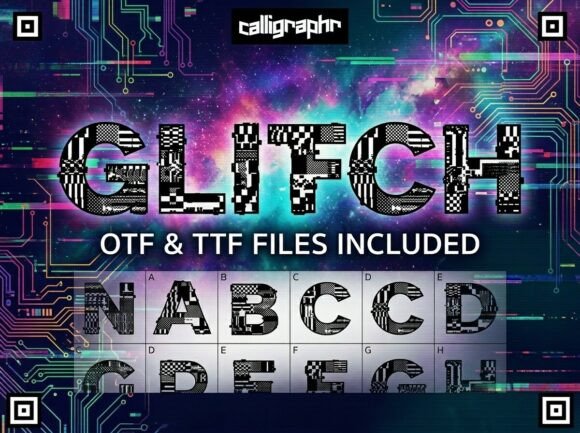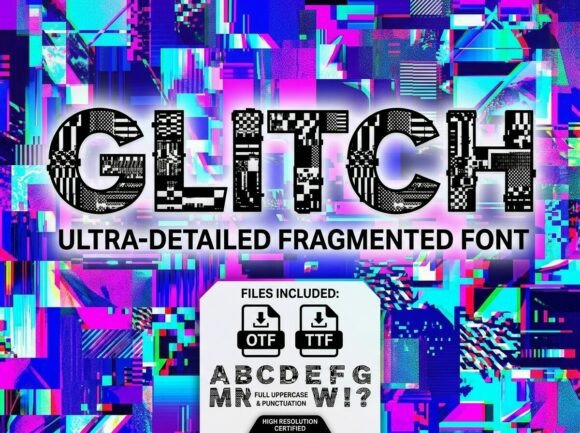
Hack Your Way into the Future of Digital Design with Glitch Font
In the realm of digital design, fonts play a crucial role in shaping the visual identity of a project. For those seeking to inject a dose of cyberpunk flair into their creations, the Glitch Font is an electrifying choice. This display typeface is meticulously crafted to mirror a corrupted system matrix, offering a unique blend of style and technical disruption.
The Anatomy of Glitch Font
Glitch Font boasts thick sans-serif hulls that are heavily distorted with static anomalies, displacement shifts, and horizontal tracking errors. This deliberate distortion gives the font an aggressive, high-contrast digital edge that is sure to turn heads. The internal canvas of each character is packed with a dizzying mix of:
- Checkerboard pixel arrays
- Binary digital noise
- Clipped data bars
This intricate design makes Glitch Font an extraordinary choice for projects that demand a futuristic and edgy aesthetic.
Applications of Glitch Font
The versatility of Glitch Font makes it suitable for a wide range of applications, including:
- Virtual Streamer Overlays: Add a cyberpunk twist to your live streams with Glitch Font, making your channel stand out in a crowded digital landscape.
- Cyberpunk Video Game Headers: Elevate your game’s title screens and menus with a font that embodies the essence of a futuristic, high-tech world.
- Electronic Synthwave Album Covers: Capture the nostalgia and futuristic vibe of synthwave music with Glitch Font, perfect for album covers and promotional materials.
- Industrial Tech Branding: Inject a dose of cyber-coolness into your tech brand’s visual identity, making it more appealing to fans of industrial and cyberpunk aesthetics.
The Benefits of Using Glitch Font
Glitch Font offers several benefits to designers and crafters looking to push the boundaries of digital design:
- Professional Cyber-Coolness: Glitch Font delivers an unyielding sense of professionalism and coolness, perfect for brands and projects aiming to appear cutting-edge and futuristic.
- Legendary Structural Chaos: The font’s distorted and disrupted design elements bring a sense of legendary structural chaos to your layouts, making every headline feel intensely animated and alive.
- High-Velocity Aesthetic: With its thick sans-serif hulls and static anomalies, Glitch Font provides a high-velocity aesthetic that is sure to capture the attention of your audience.
Tips for Using Glitch Font Effectively
To maximize the impact of Glitch Font in your designs, consider the following tips:
- Balance with Simplicity: While Glitch Font is attention-grabbing, it’s essential to balance it with simpler design elements to avoid visual overload.
- Experiment with Colors: The font’s high-contrast design makes it versatile for use with various color schemes. Experiment with neon colors, dark palettes, or metallic finishes to enhance its cyberpunk appeal.
- Mix with Other Fonts: For added visual interest, consider mixing Glitch Font with other fonts that complement its futuristic and edgy aesthetic.
Glitch Font is more than just a typeface; it’s a statement piece for your digital designs. Its unique blend of cyberpunk style, technical disruption, and high-contrast aesthetic makes it an extraordinary choice for designers and crafters looking to hack their way into the future of digital design. Whether you’re working on virtual streamer overlays, cyberpunk video game headers, electronic synthwave album covers, or industrial tech branding, Glitch Font is sure to deliver an unyielding sense of professional cyber-coolness and legendary structural chaos to your layouts.